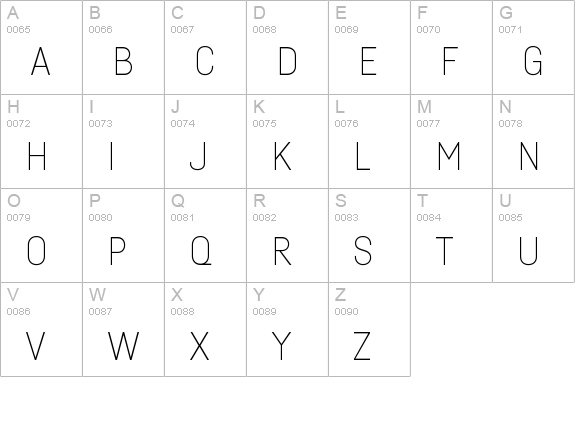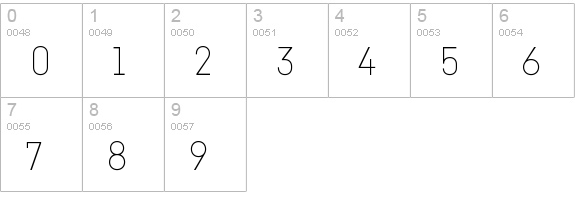
Fabrikat Thin is a delicate, low-contrast variant in the Fabrikat typeface family \xE2\x80\x94 well suited to fashion editorial, minimal branding, and high-contrast display.
Fabrikat Thin font is a modern and elegant typeface that exudes sophistication and style. With its sleek lines and clean design, this font is perfect for conveying a sense of minimalism and sophistication in any project. The thin strokes and geometric shapes of Fabrikat Thin give it a contemporary and refined look that is ideal for branding, editorial design, and more. What makes Fabrikat Thin even more desirable is that it is available for free download at FontsMarket.com. This means that you can easily access and use this beautiful font in your projects without having to worry about any additional costs. Whether you're a designer looking to add a touch of class to your work or a business owner wanting to elevate your brand identity, Fabrikat Thin is a versatile and stylish choice that won't break the bank. Download it today and see the difference it can make in your designs!